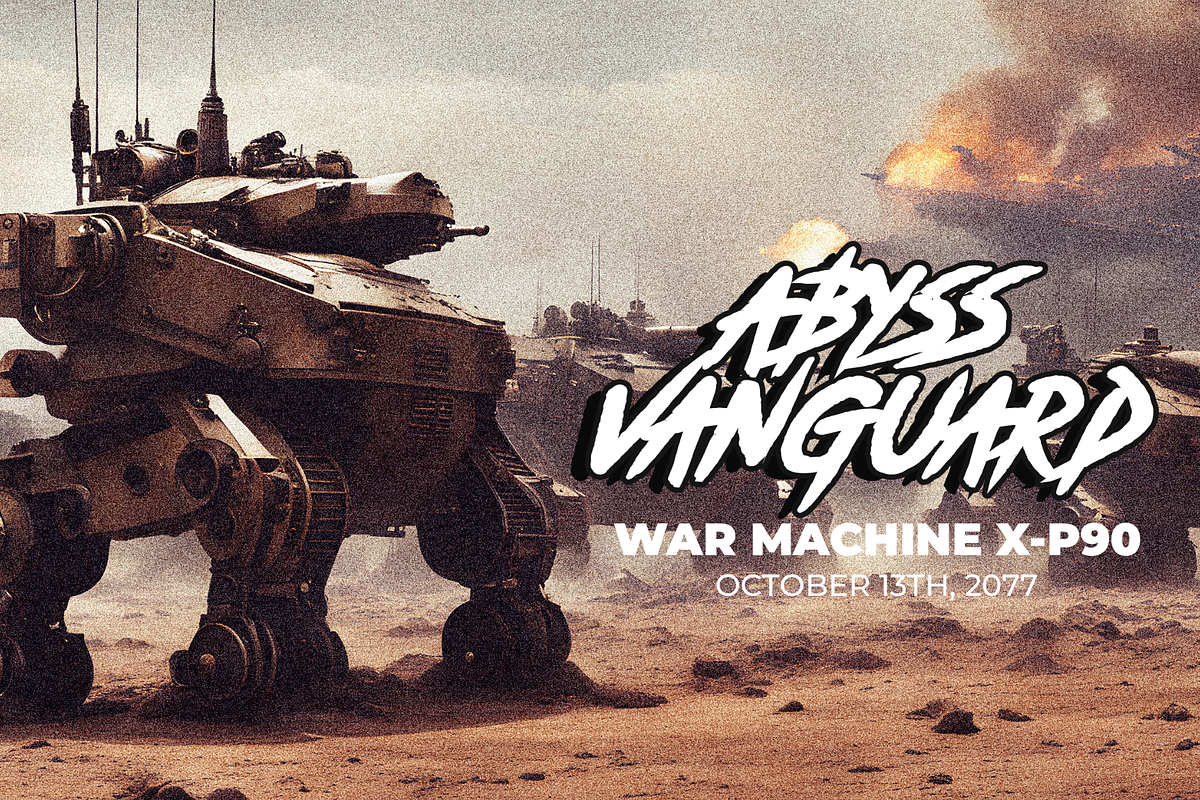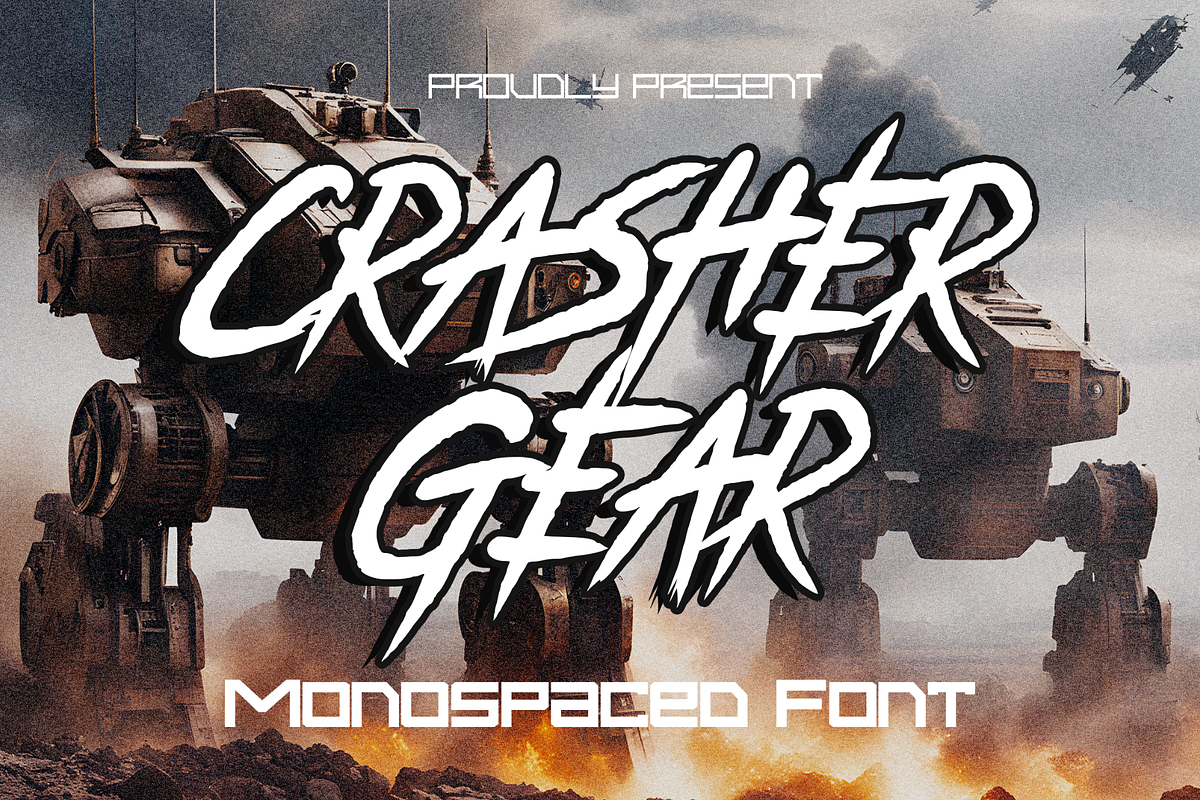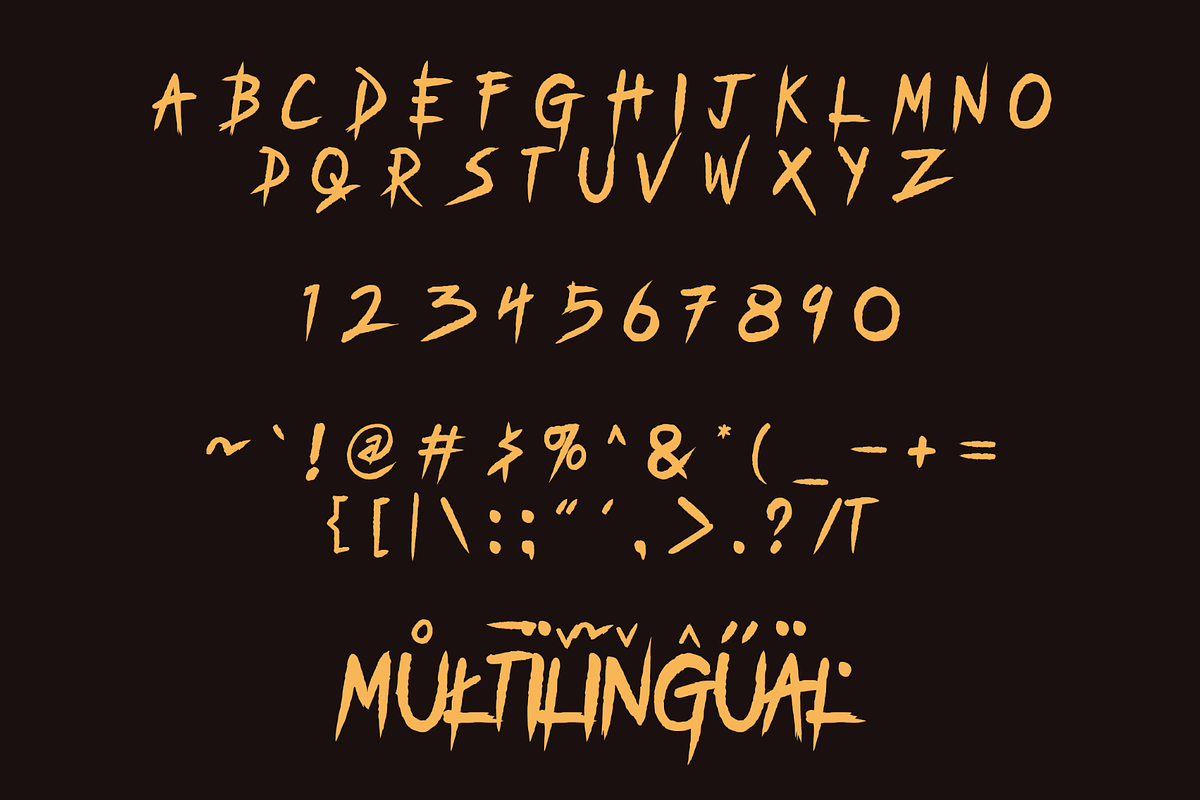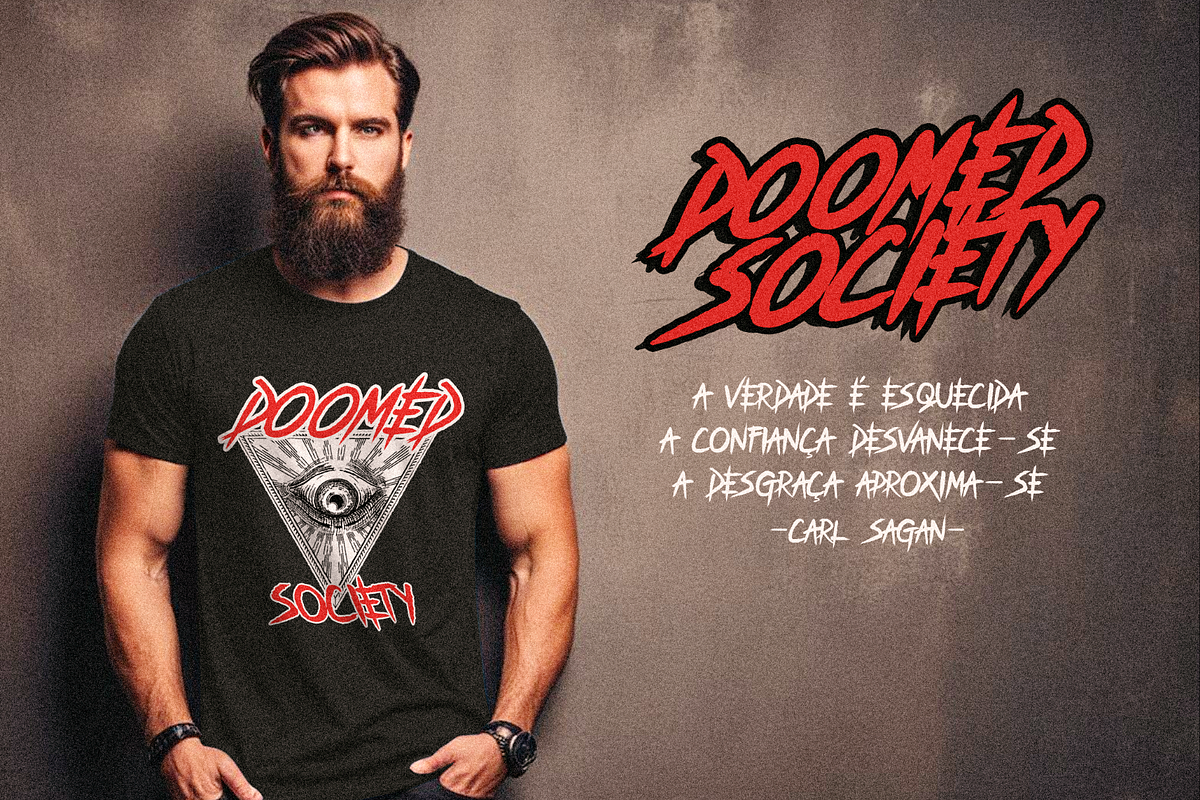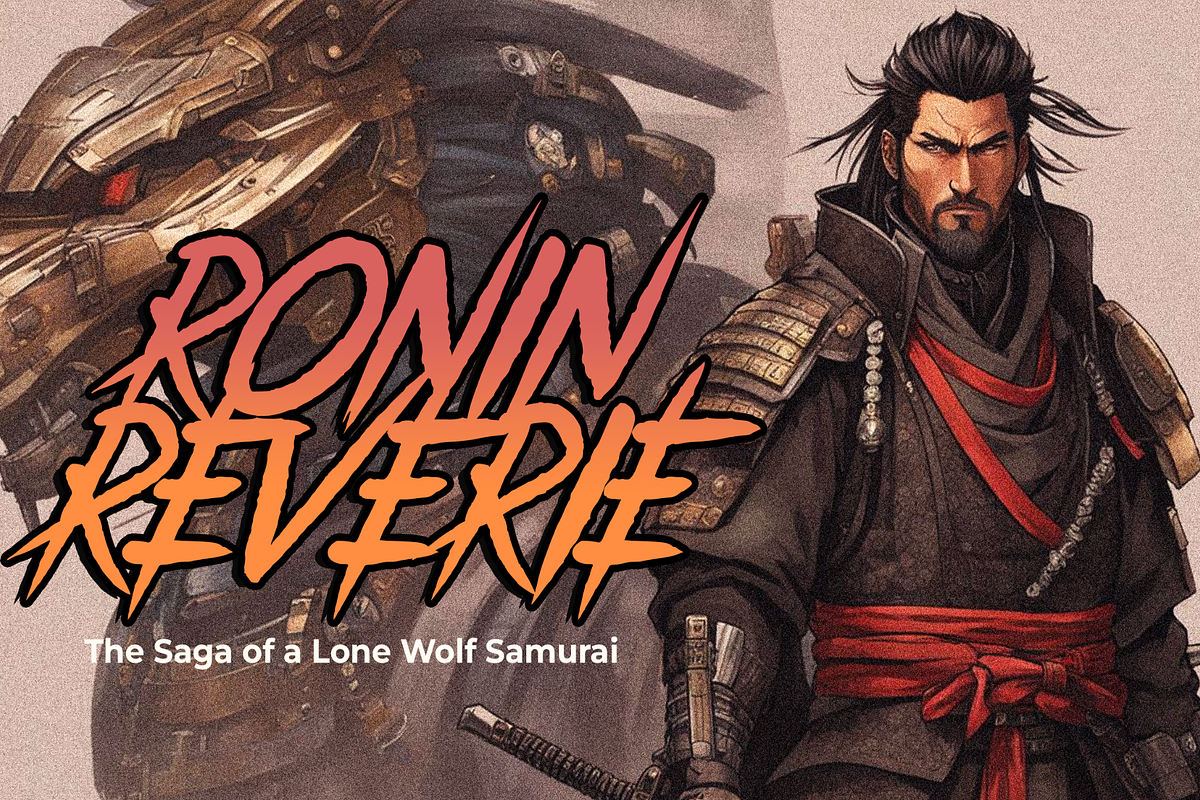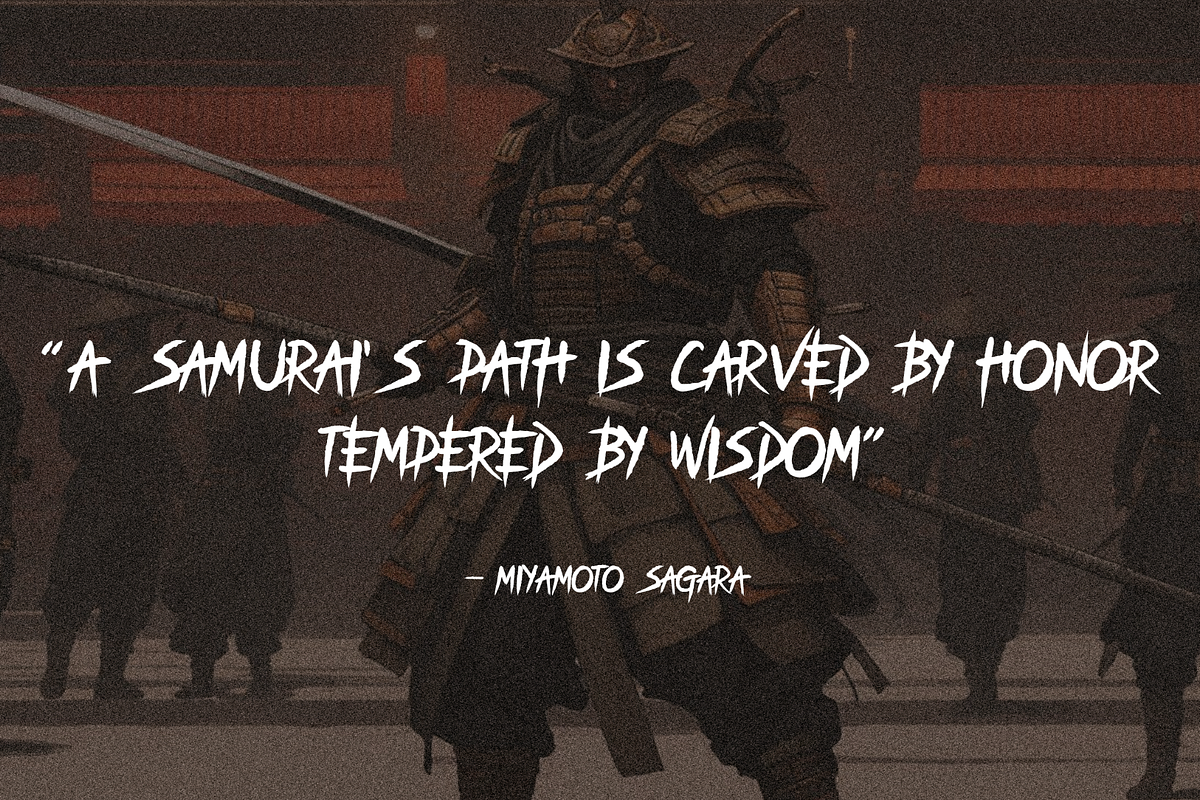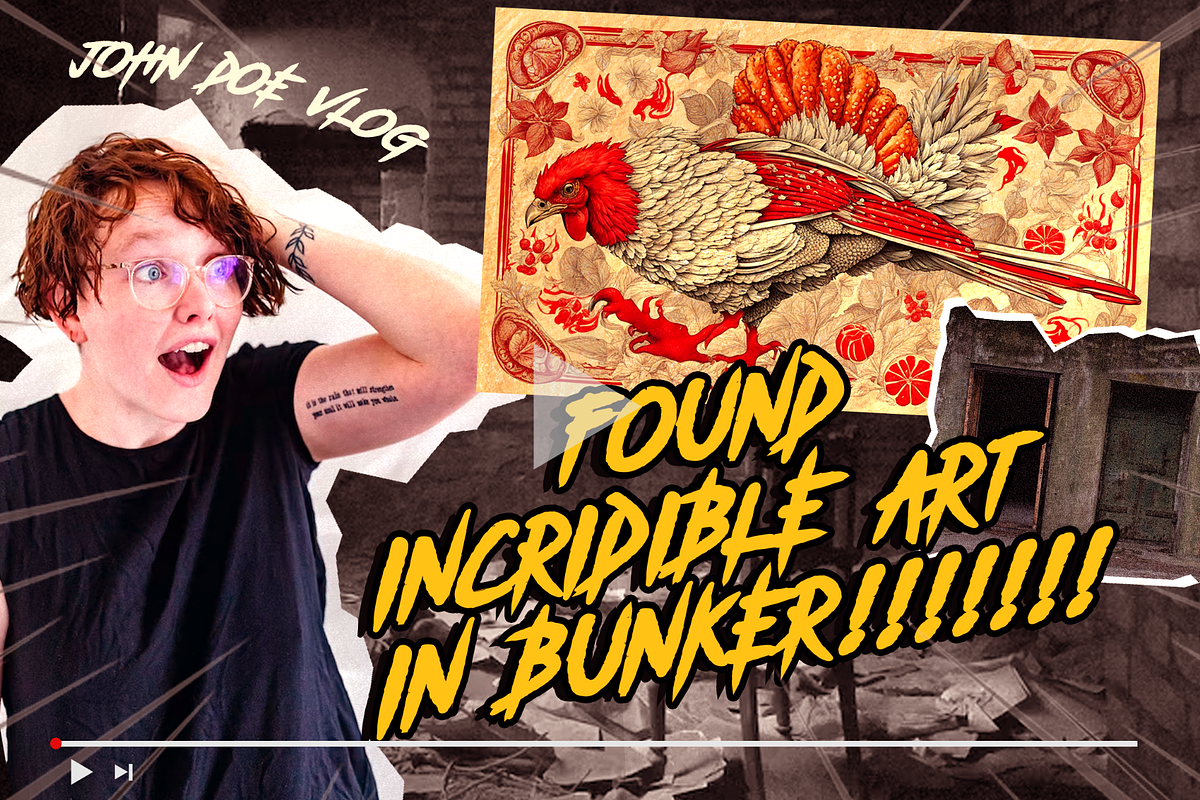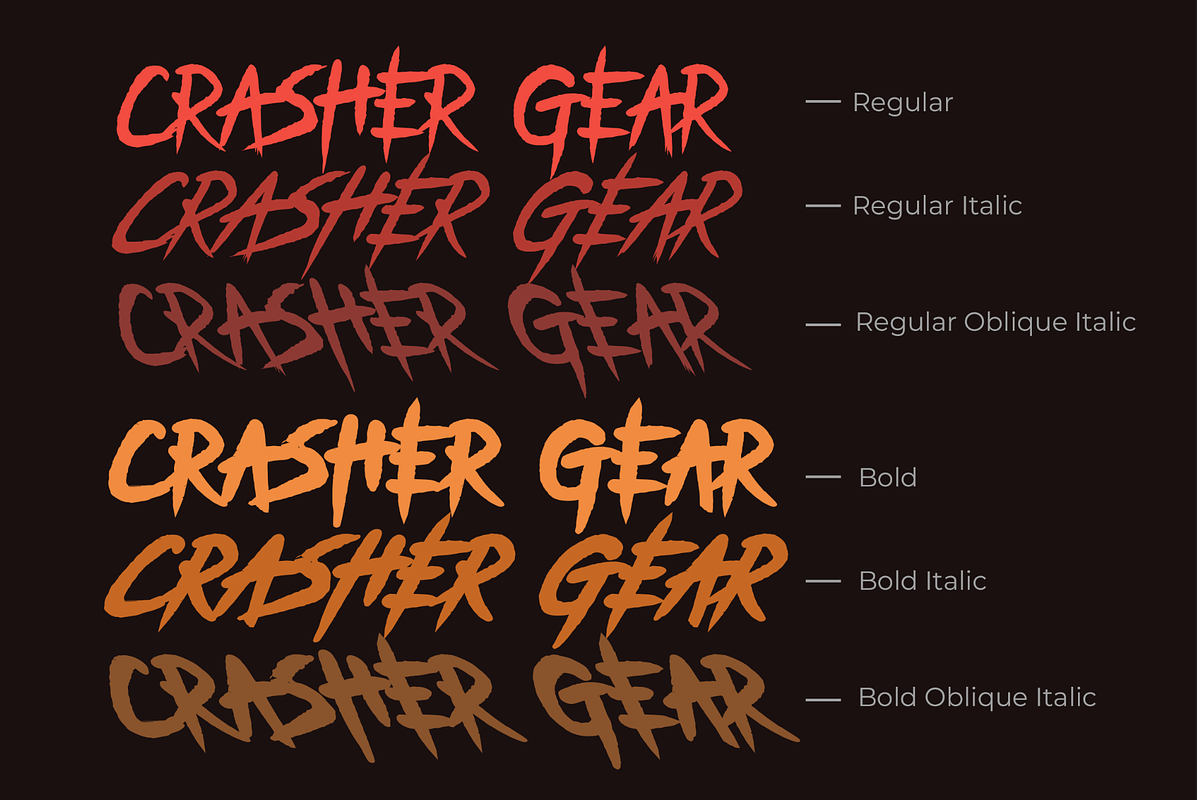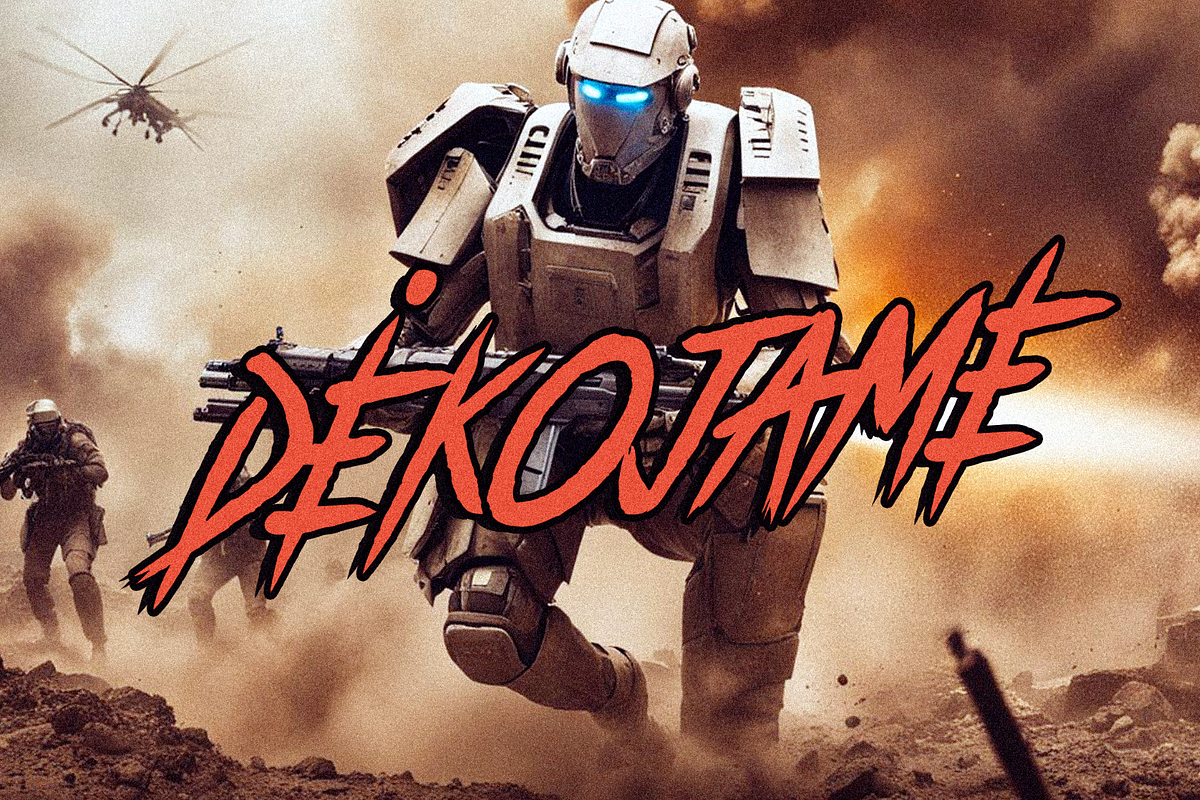
Crasher Gear-Monospaced Display Font
Introducing "Crasher Gear," a captivating handwritten font with a monospaced, unique, and grunge-inspired design. Its multilingual support ensures seamless global communication. Embodying a modern, bold spirit with a touch of dystopian robot power, this versatile font offers Regular, Italic, Oblique Italic, Bold, Bold Italic, and Bold Oblique Italic styles. Ideal for posters, marketing materials, titles, T-shirt designs, YouTube thumbnails, games, and countless other creative projects, "Crasher Gear" is bound to leave a lasting impression with its edgy and captivating aesthetics.